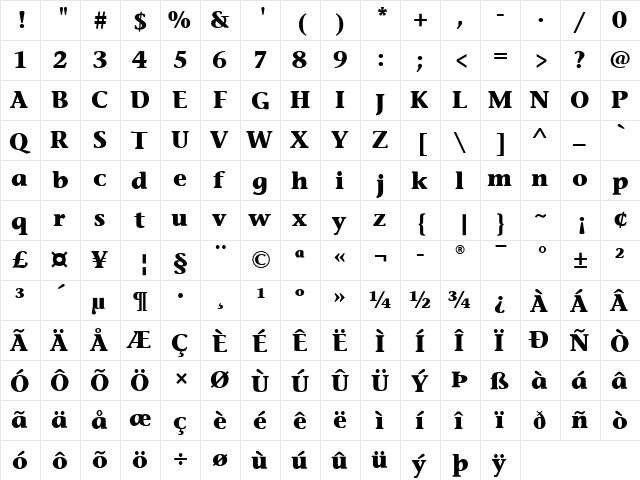
StoneInfITC Bold
| Foundry | International Typeface Corporation |
Design Context for StoneInfITC Typeface
StoneInfITC takes a measured approach to typography — its balanced proportions and neutral character make it a reliable workhorse for both digital and print work. The heavy weight commands attention and anchors typographic hierarchies.